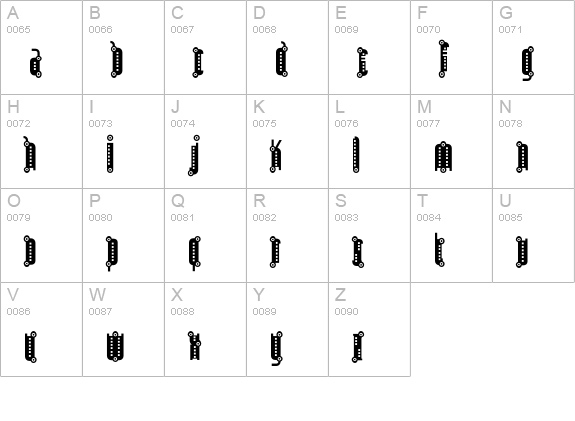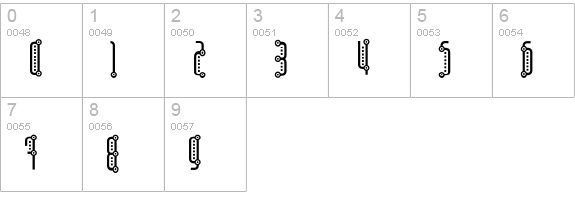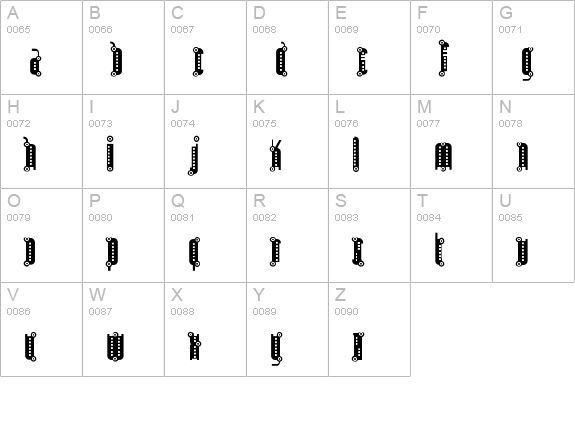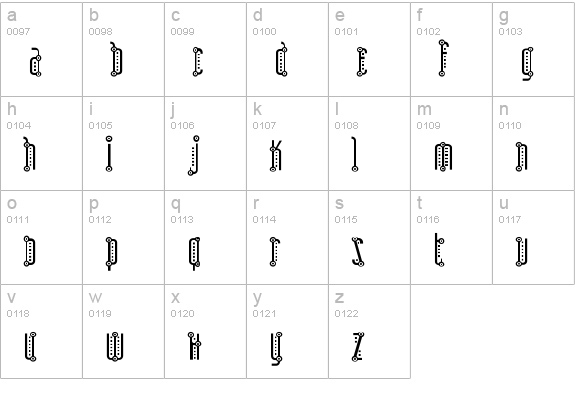
Autorama font is a modern and stylish typeface that exudes sophistication and elegance. With its clean lines and sleek design, this font is perfect for a wide range of design projects, from branding to editorial layouts. The versatility of Autorama font makes it a must-have for designers looking to add a touch of refinement to their work. And the best part? Autorama font is completely free to download at FontsMarket.com! So you can enhance your projects with this stunning font without breaking the bank. Don't miss out on this fantastic opportunity to elevate your designs with the timeless beauty of Autorama font.